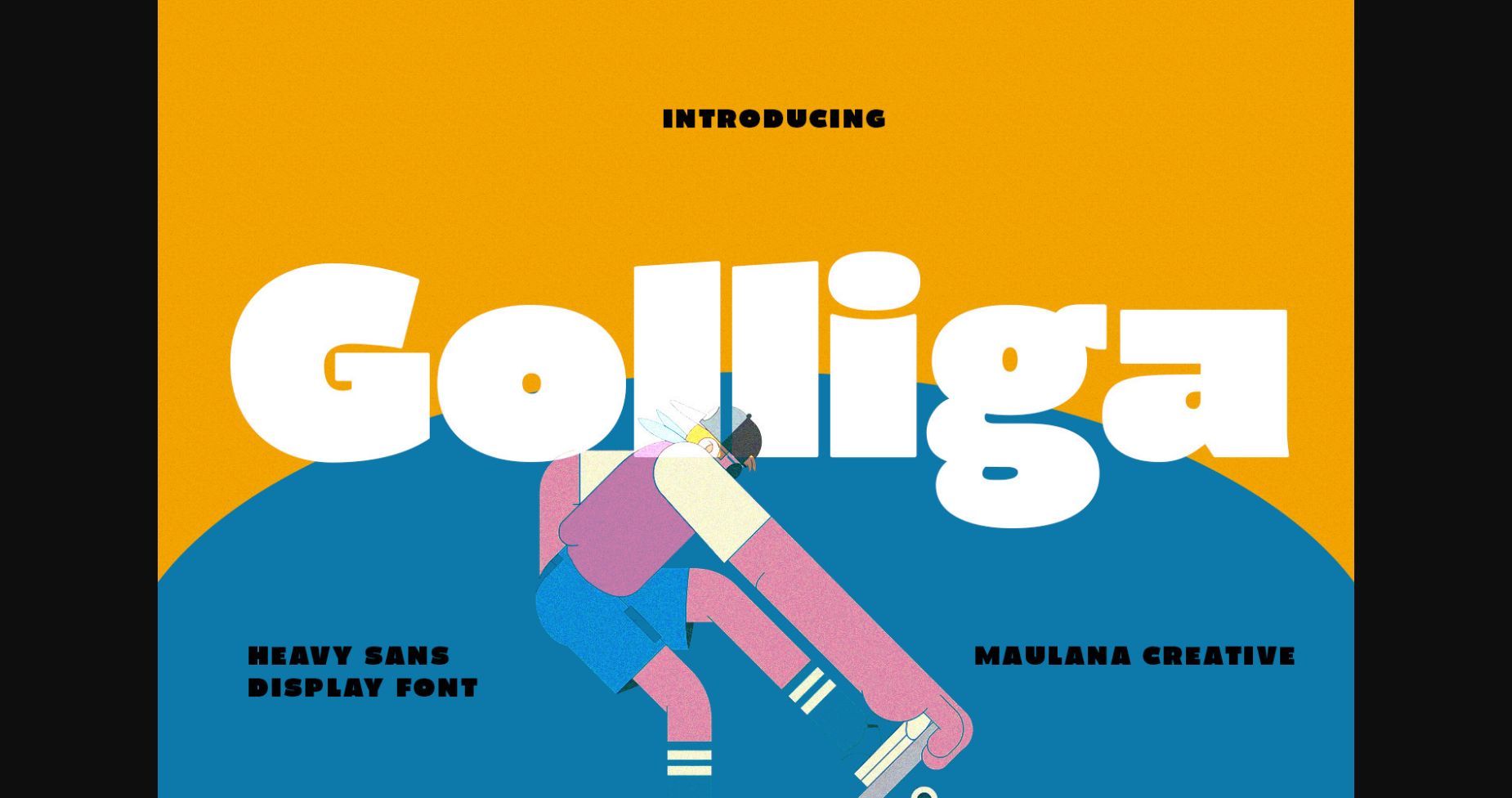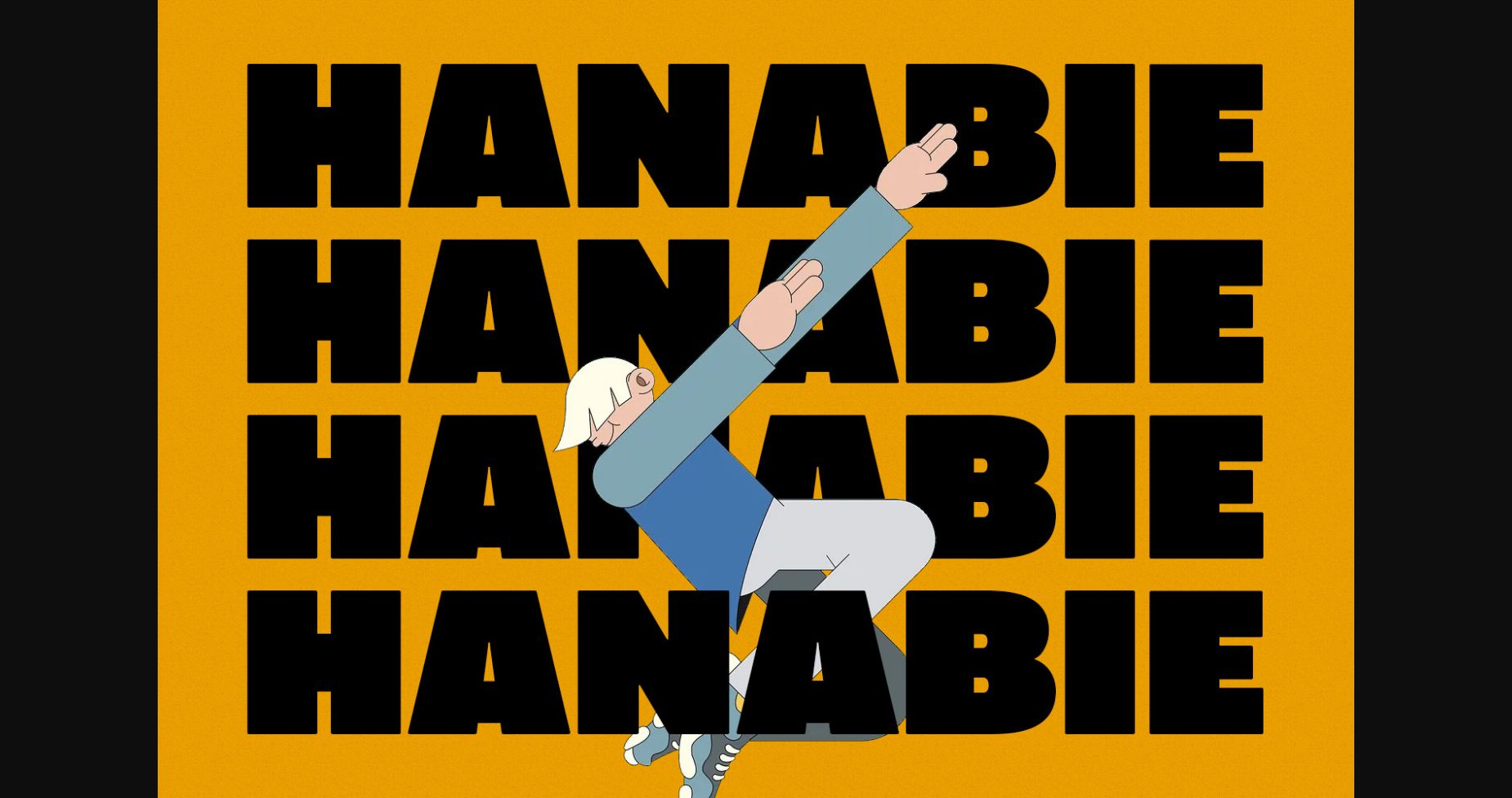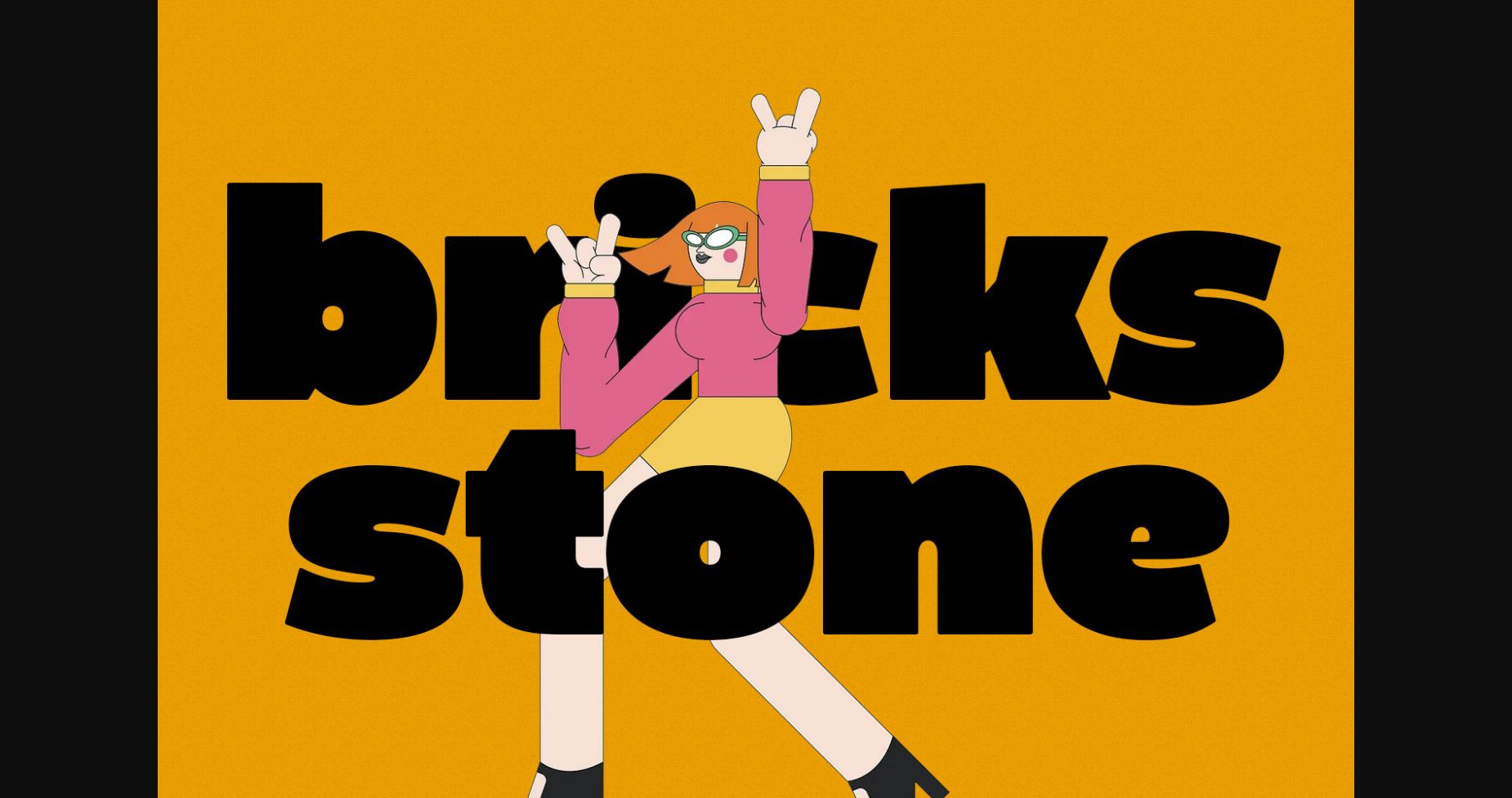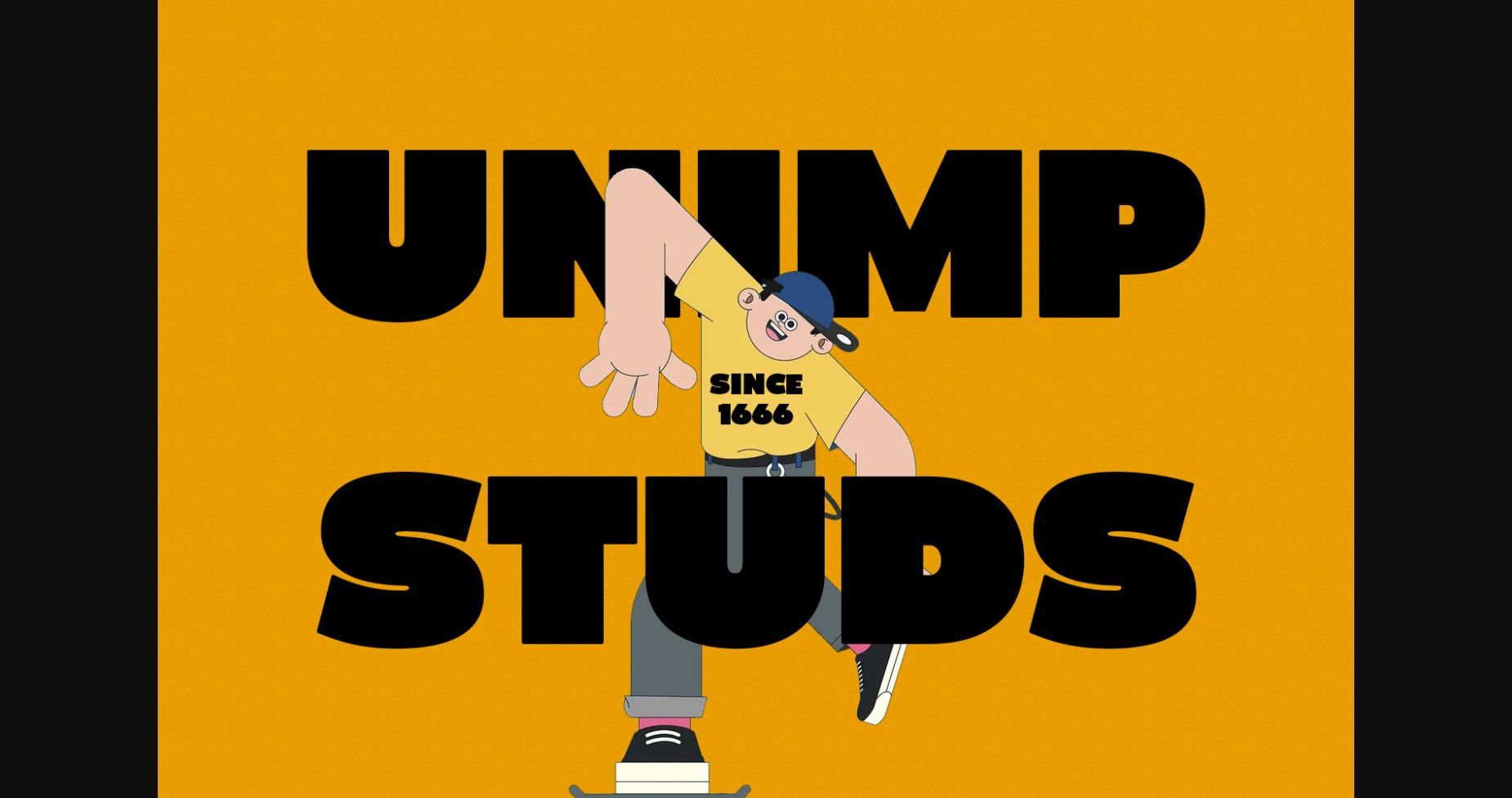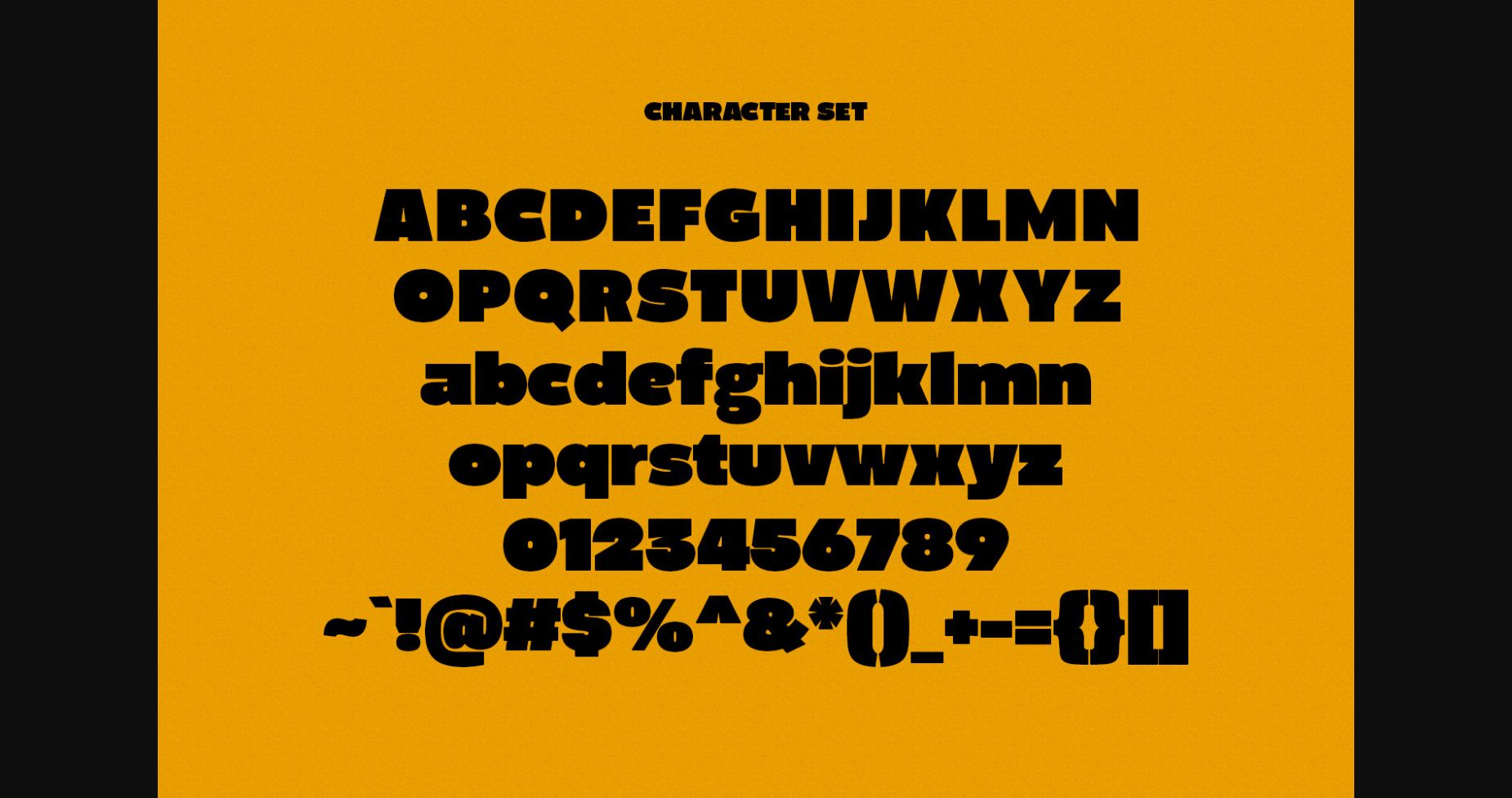
Golliga Font
About Golliga Font
Golliga is a bold and impactful sans-serif display font designed to make a statement. With its thick and heavy lines, it demands attention and exudes strength and power. Its clean and minimalist design gives it a modern edge, making it perfect for logos, headlines, and posters. Whether you need to grab attention or convey a sense of authority, Golliga has got you covered.